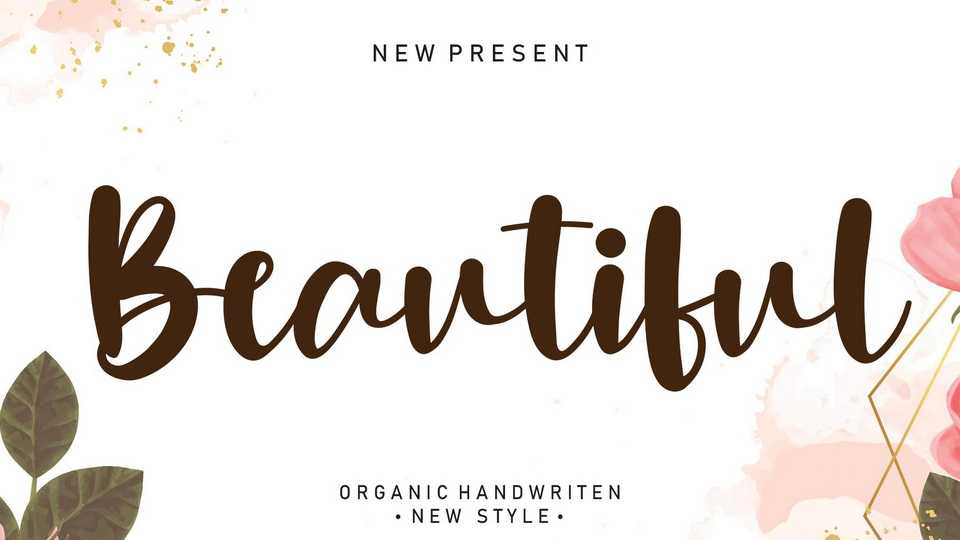
Download Beautiful font,, a well balanced and stylish script typeface. Beautiful font is defined by smooth curves and is perfect for fashion branding or editorial designs.